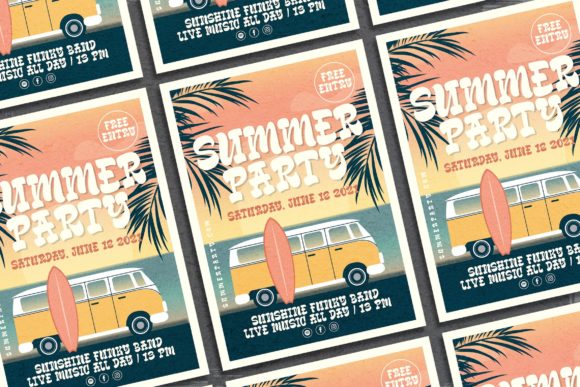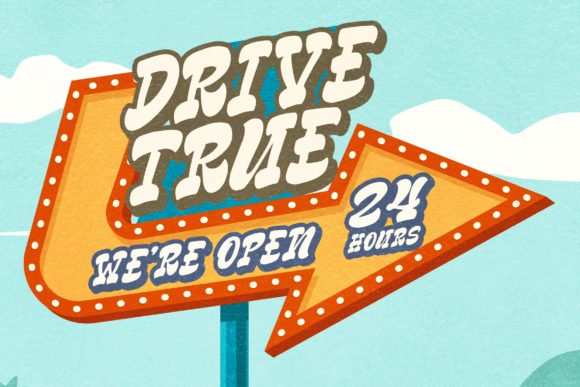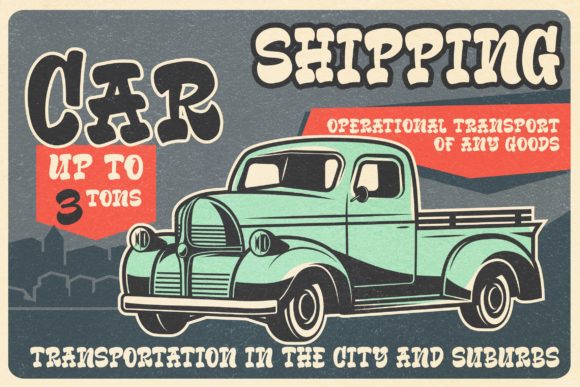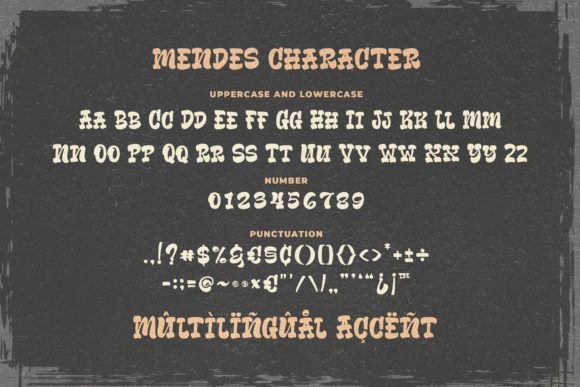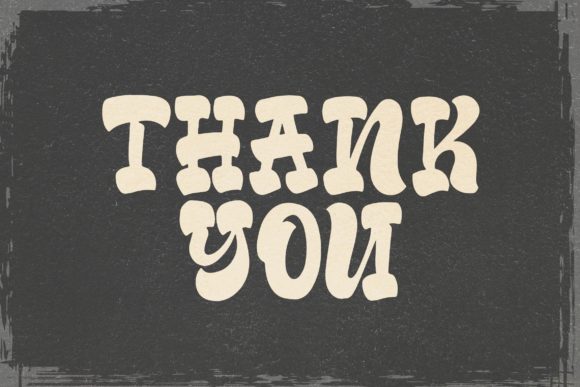
Introduction to Mendes Font Font
Fonts play a crucial role in design, and the Mendes Font font is a typeface that brings both character and versatility to any project. Whether you’re working on a branding project, a website, or a print design, the Mendes Font font offers a unique style that can elevate your work.
Mendes is a fun, unique and playful display font.
It has a vintage touch and as a result, it will make each of your designs stand out .
Key Features of Mendes Font Font
Why Choose Mendes Font Font?
The Mendes Font font is more than just a typeface – it’s a design tool that helps you communicate your message with style and clarity. Its unique character set and versatile design make it suitable for a wide range of applications, from elegant invitations to bold headlines.
With its carefully crafted letterforms and balanced proportions, the Mendes Font font ensures readability and visual appeal across all mediums.
What makes Mendes Font font special?
The Mendes Font font stands out with its unique design, exceptional readability, and versatility across various design applications.